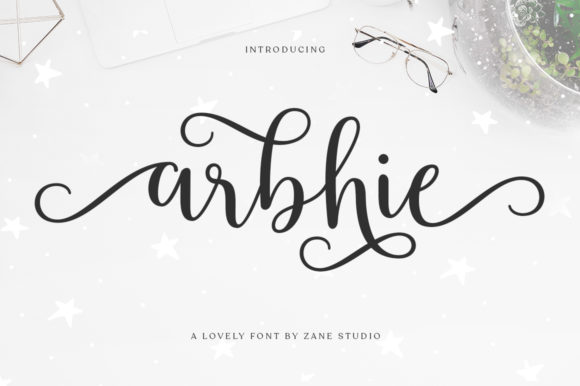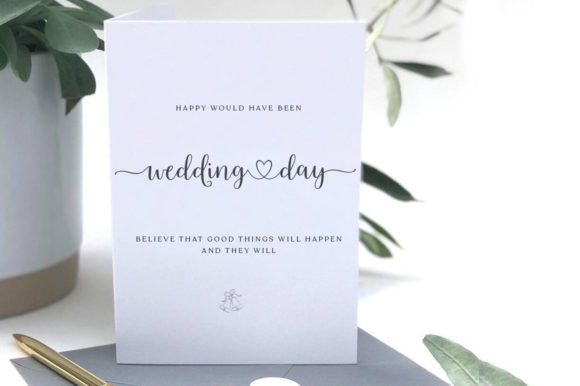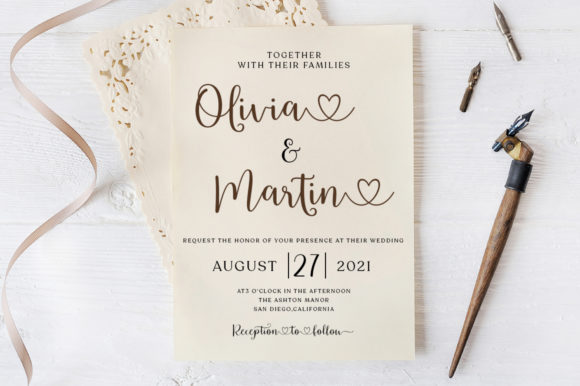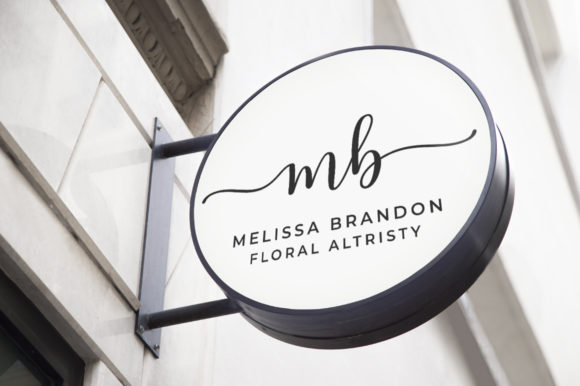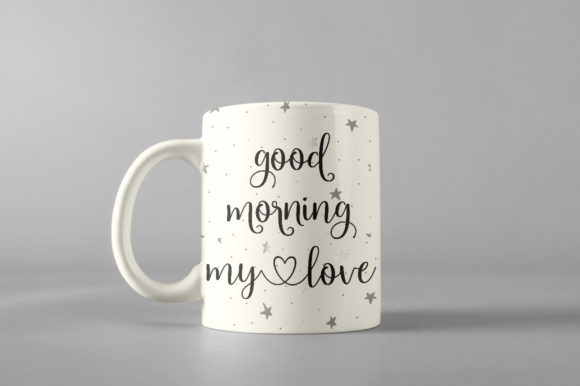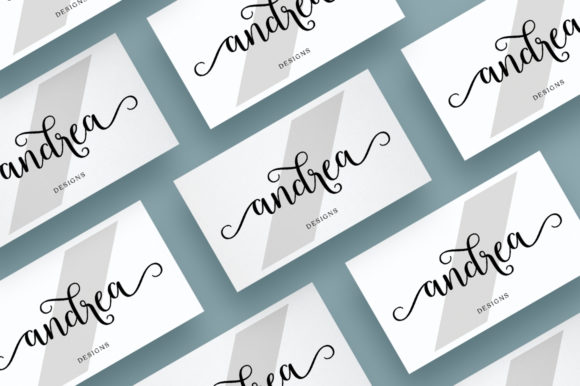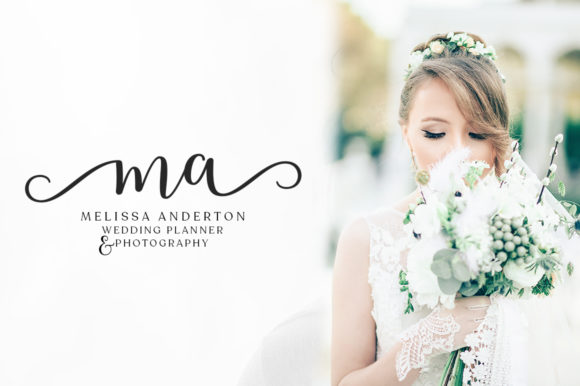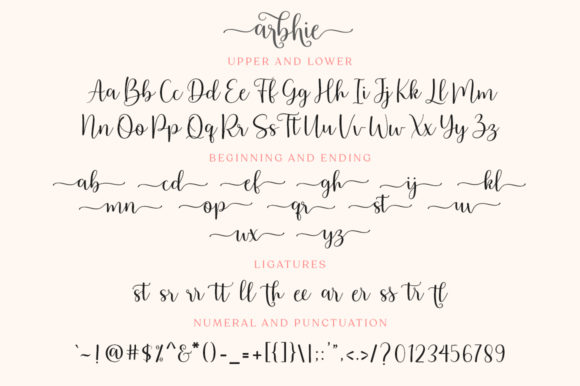
Arbhie Font
About Arbhie Font
Arbhie sounds like an exquisite and versatile handwritten font, designed to elevate your creative projects to new heights. With its elegant and flowing style, it offers a touch of sophistication while still feeling contemporary and fresh. Let’s explore some exciting ways you can use Arbhie to bring your designs to life:
1. Wedding Invitations: Create elegant and romantic wedding invitations that capture the essence of the special day, impressing your guests from the moment they receive the invite.
2. Thank You Cards: Craft heartfelt thank you cards with Arbhie’s graceful touch, expressing gratitude in a beautiful and memorable way.
3. Quotes and Typography: Use Arbhie to design stunning typographic quotes that inspire and captivate, adding a touch of elegance to your messages.
4. Greeting Cards: Design sophisticated and charming greeting cards for various occasions, from birthdays to holidays, making your greetings even more special.
5. Branding and Logos: Apply Arbhie to branding projects, creating a distinctive and stylish visual identity that reflects your brand’s elegance.
6. Social Media Graphics: Use Arbhie to design eye-catching and sophisticated social media posts that stand out on different platforms.
7. Personal Journals: Add Arbhie’s elegant touch to personal journaling, turning your entries into works of art.
8. Business Cards: Design professional and elegant business cards that leave a lasting impression on potential clients and contacts.
9. Art Prints: Create captivating art prints featuring Arbhie’s flowing handwriting, perfect for home decor or as unique gifts.
10. Product Packaging: Use Arbhie to add a touch of sophistication to product packaging, making your products stand out on the shelves.
11. Event Flyers: Design chic event flyers with Arbhie, enticing people to attend your events with its elegant style.
12. DIY Projects: Incorporate Arbhie into various DIY projects, adding a touch of elegance and charm to your creations.
13. Personalized Gifts: Create personalized gifts, such as custom prints or mugs, with Arbhie, adding a special and unique touch to each item.
14. Magazine Layouts: Enhance the visual appeal of magazine layouts with Arbhie’s elegant and flowing handwriting.
15. Beauty and Fashion Branding: Use Arbhie for beauty and fashion branding, infusing your brand with an air of elegance and sophistication.
16. Book Covers: Apply Arbhie to book covers, giving your literary works a touch of elegance and allure.
17. Special Event Invitations: Design invitations for special events, like anniversaries or milestone celebrations, with Arbhie’s refined and flowing style.
18. Website Headers: Customize your website headers with Arbhie’s elegant handwriting, creating a stylish and memorable first impression.
19. Restaurant Menus: Add Arbhie’s sophisticated touch to restaurant menus, enhancing the dining experience for your customers.
20. Personal Stationery: Create personalized stationery featuring Arbhie, making your correspondence and notes truly special.
In conclusion, Arbhie is an elegant and flowing handwritten font that offers versatility, sophistication, and charm to a wide range of design projects. From wedding invitations to social media graphics, from branding to personal journals, Arbhie’s graceful touch will add an air of elegance and refinement to your creations. Embrace the versatility of Arbhie in your design projects and witness how it elevates your work to new heights, leaving a lasting impression on your audience. Let Arbhie infuse your designs with its exquisite style, making them stand out and shine with elegance and allure. Fall in love with Arbhie and experience the magic it brings to your projects.